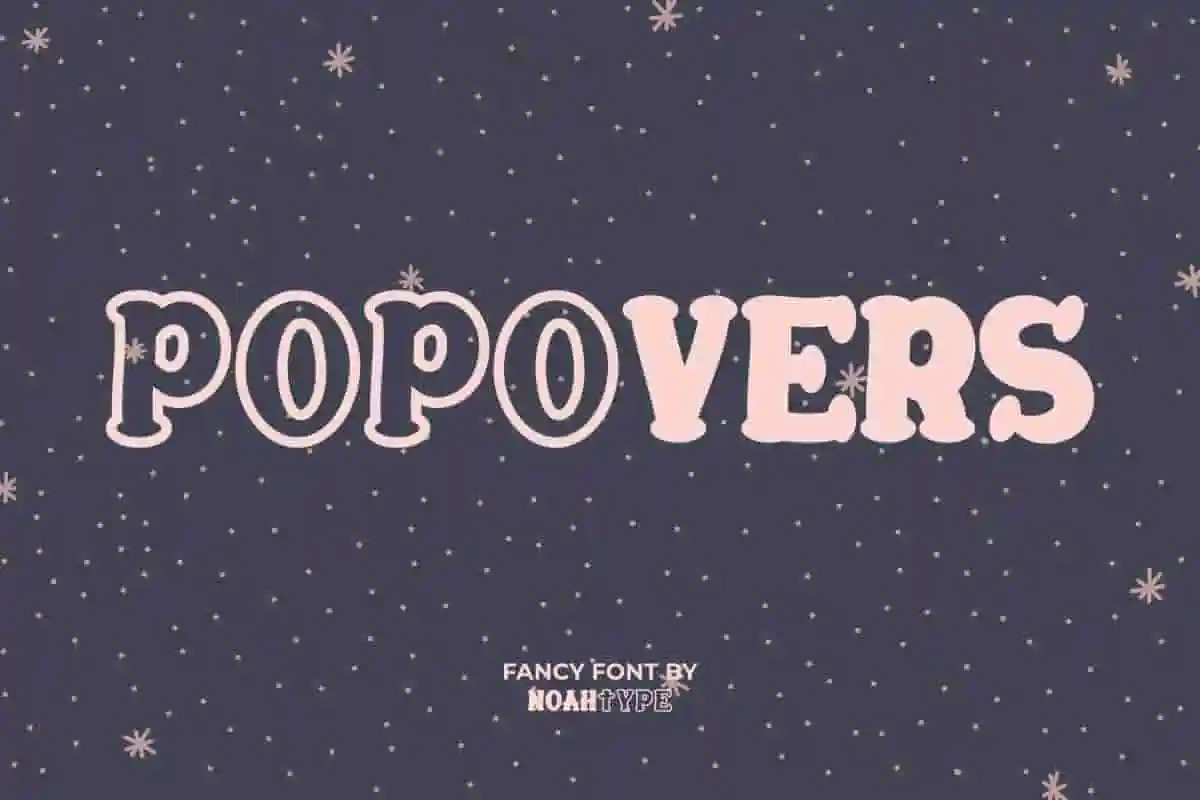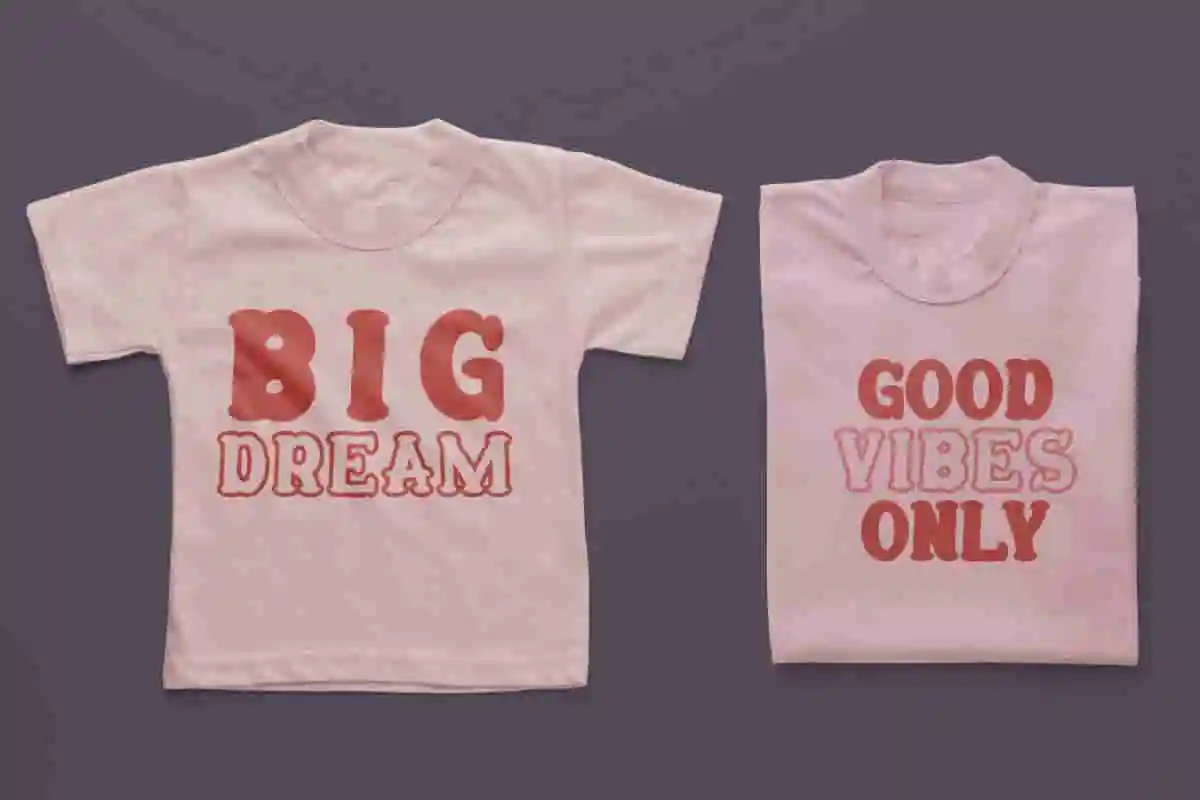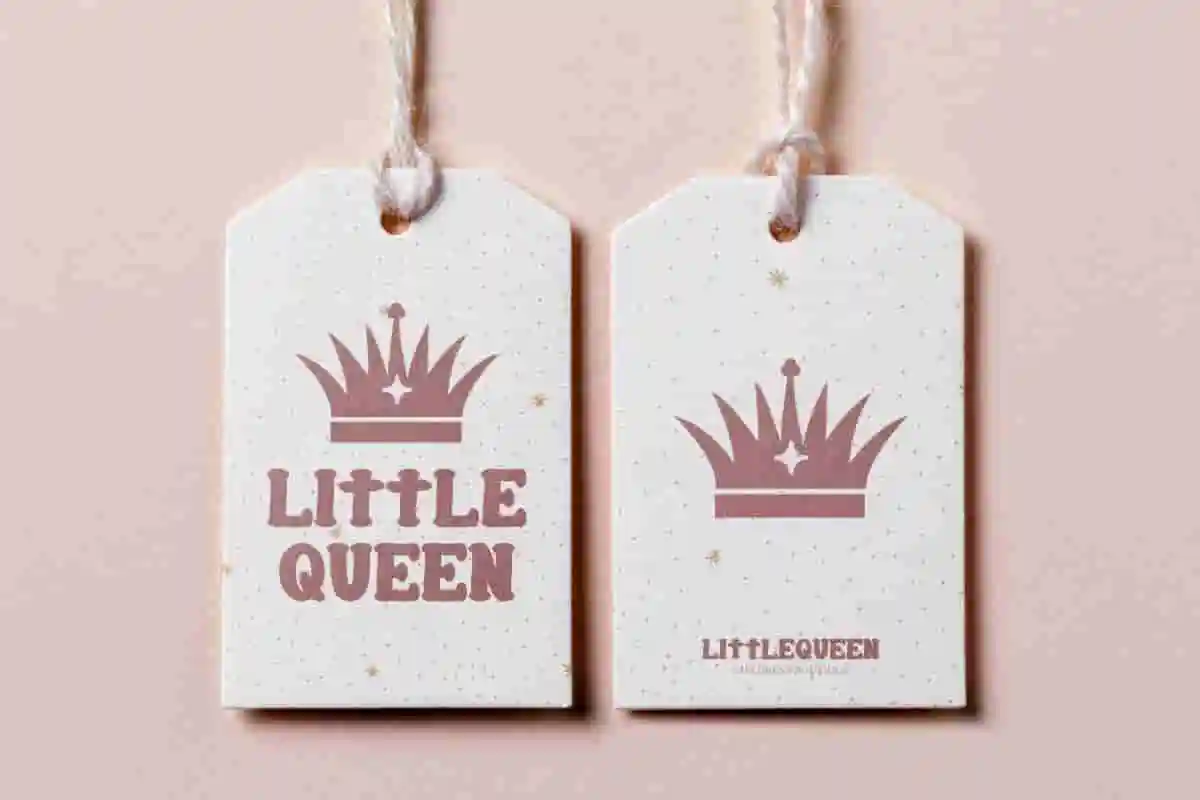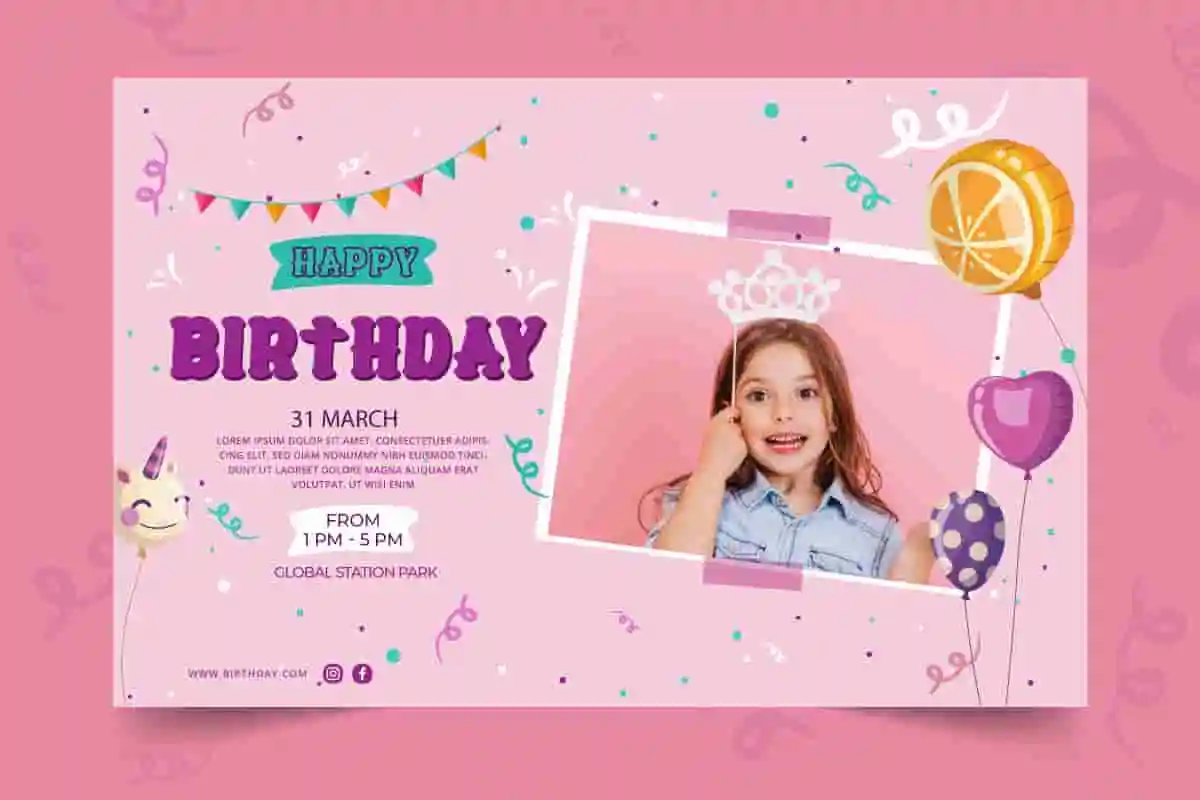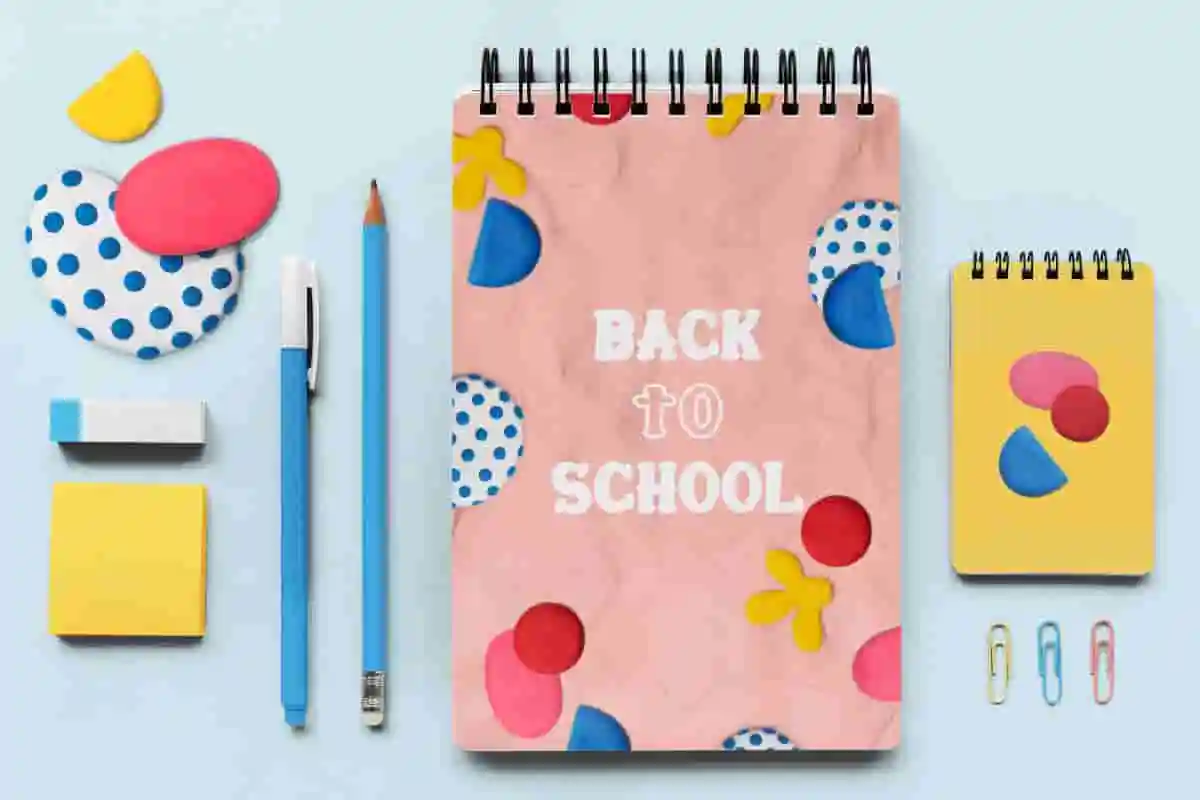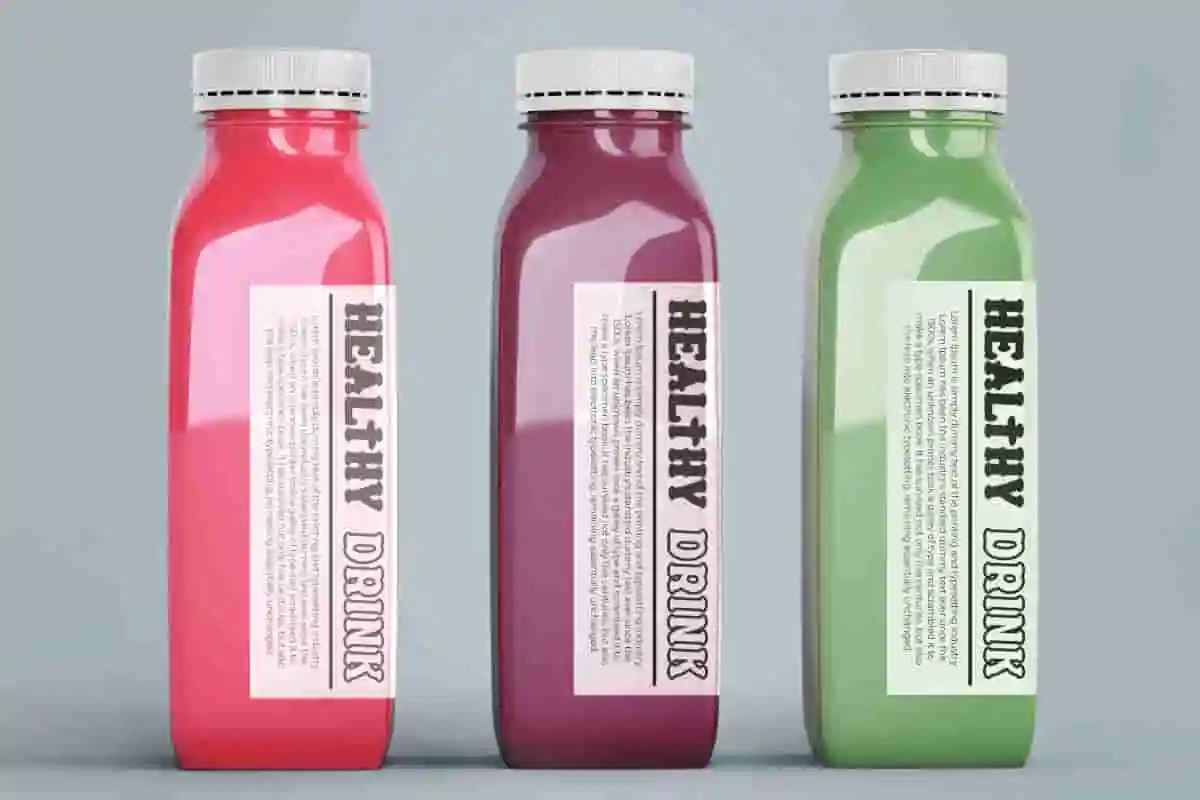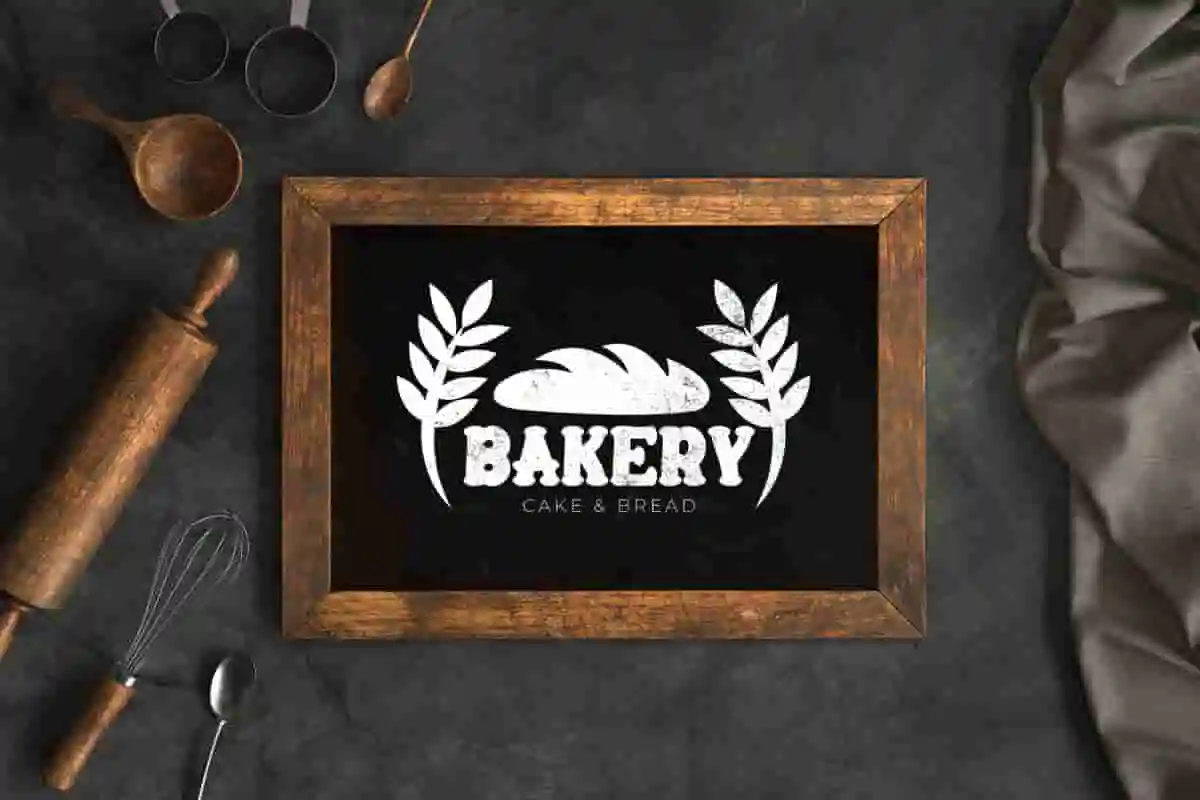
Popovers Font is a fancy font with pop culture comic style. This font is inspired by a cute and stylish children’s comic book cartoon. When we created this font, we really wanted to make a touch of it modern and playful. This awesome font is for anyone who needs a fun and creative design with a cartoon comic theme.
Popovers Font includes a full set of ALL CAPS with different sizes between uppercase and lowercase letters, Numbers and Punctuation to create beautiful font look and perfect your extraordinary projects. This font has two different styles: Regular and Outline.
Popovers Fancy Font will be awesome for events, kids, logo branding, school, products packaging, retail, signage, stationery, title etc
Looking for a font that instantly adds a playful and eye-catching touch to your creative projects? Popovers Comic Fancy Font is here to make your designs pop with charm, color, and character. This unique typeface blends the whimsical energy of comic lettering with a stylish fancy twist, perfect for both modern and retro-inspired creations.
Popovers Font will be great for branding, lettering, logotype, screen printing, social media post, watermark, webpage and many more!